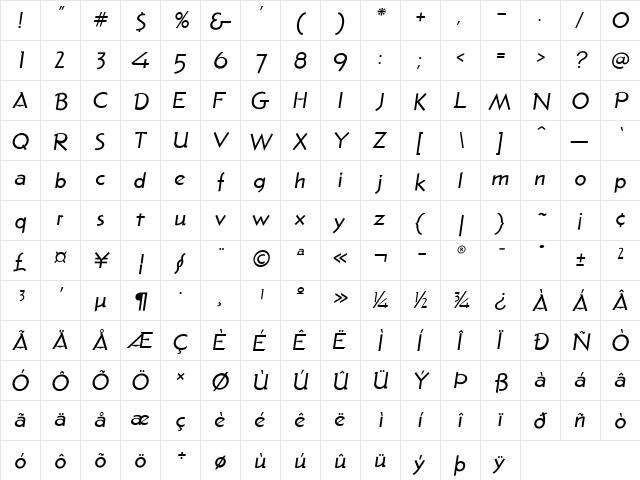
Pacific Regular Font Preview
Pacific Regular
Pacific Regular Font Details
Design Context for Pacific Typeface
Pacific is a composed and adaptable typeface that performs quietly and consistently across a wide range of design contexts.